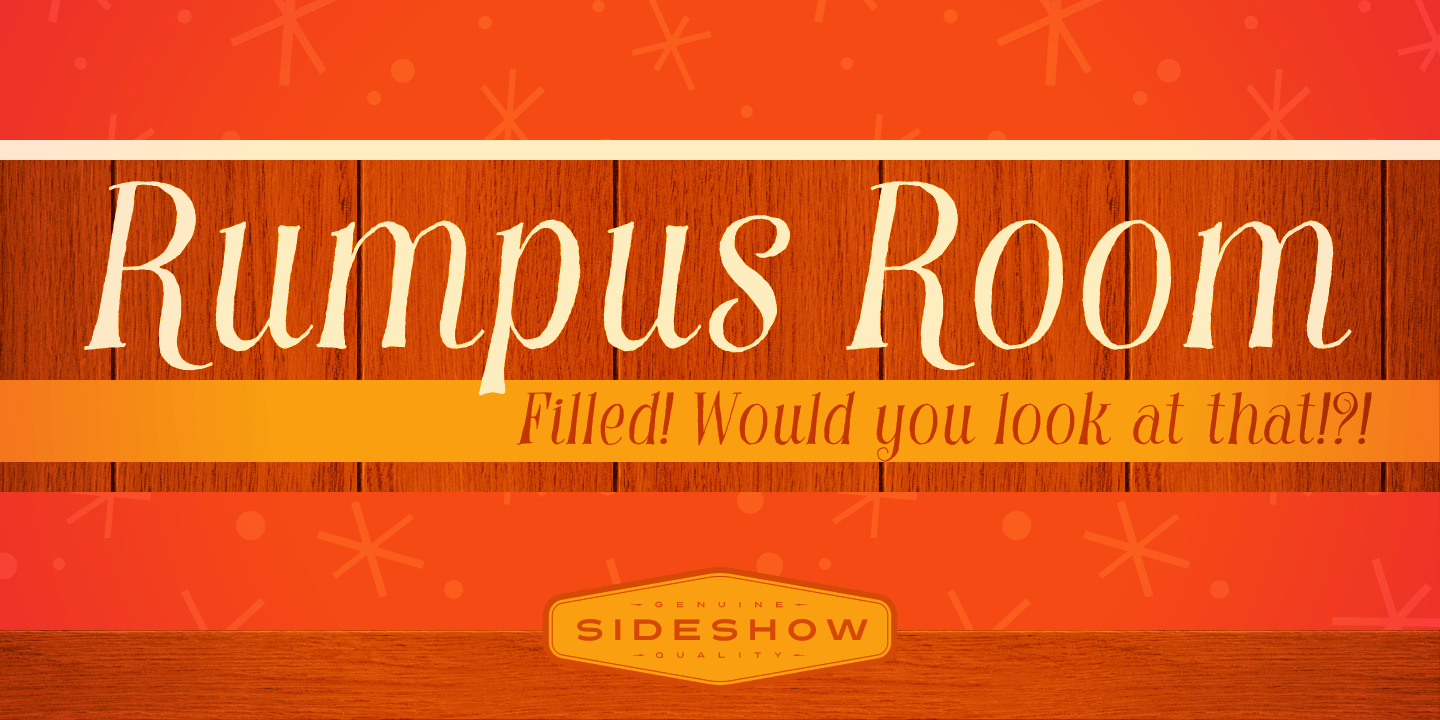
Rumpus Room Filled
Font Family by Sideshow
Rumpus Room is now filled and it's more versatile than ever! Use this casual playful handwritten font anytime you're aiming for some serious leisure and we mean leisure! Kick back, put your feed on the Naugahyde lounge chair ottoman and enjoy a little Hee-Haw with a Pabst Blue Ribbon! Good times my friends!